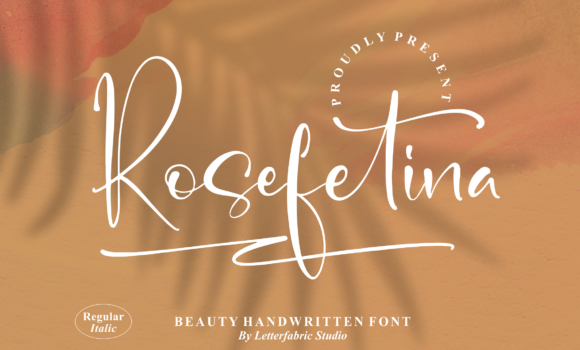
rosefetina
Rosefetina Font – Free Download Introduction to Rosefetina Font Rosefetina is a delicate and beautiful script font. 📸 Preview Gallery 6 images 📌 Product Name Rosefetina Font 👤 Author Letterfabric 📂 Category Explore ⬇️ Download Rosefetina Font FREE Free Download